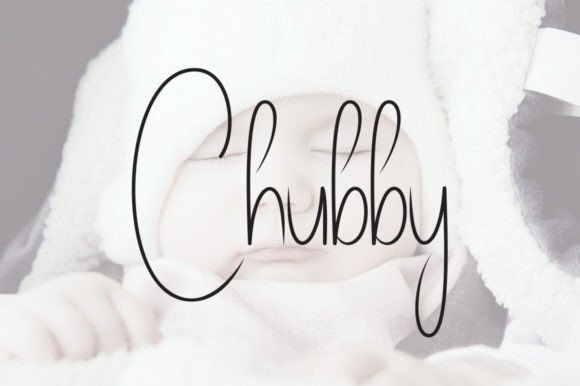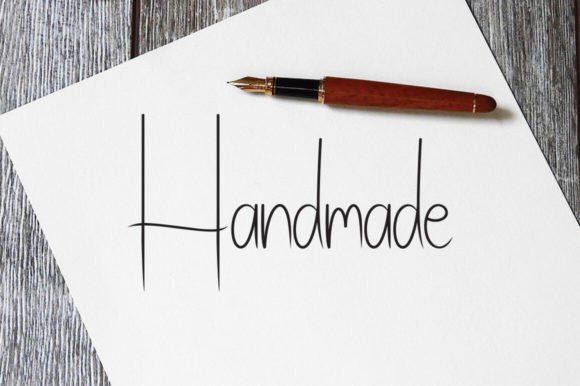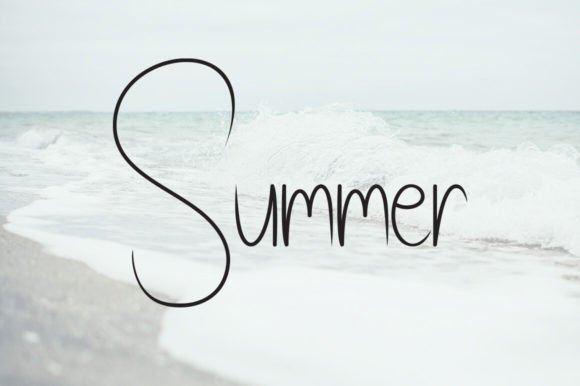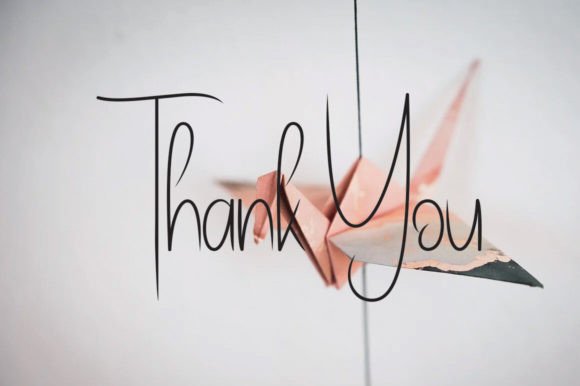
Introducing Brother Font: The Sweet and Cursive Handwritten Font for Your Design Needs
Are you a designer or crafter looking for a font that can add a touch of sweetness and romance to your projects? Look no further than Brother Font, a beautiful and cursive handwritten font that is sure to make your designs stand out. In this article, we’ll take a closer look at Brother Font, its features, and how you can use it to elevate your designs.
What is Brother Font?
Brother Font is a sweet and cursive handwritten font that is designed to add a joyful and romantic touch to your projects. Its gentle and flowing curves make it perfect for a variety of design ideas, from wedding invitations and baby shower cards to branding and packaging designs. With its unique and elegant style, Brother Font is sure to capture the hearts of your audience and leave a lasting impression.
Features of Brother Font
So, what makes Brother Font so special? Here are some of its key features:
- Sweet and Cursive Style: Brother Font has a beautiful, cursive handwritten style that is both sweet and elegant.
- Handwritten with Love: Each letter is carefully crafted by hand to give it a personal and unique touch.
- Versatile: Brother Font can be used for a wide range of design projects, from digital to print.
- Easy to Read: Despite its cursive style, Brother Font is easy to read and understand, making it perfect for body text and headings.
How to Use Brother Font in Your Designs
Now that you know more about Brother Font, let’s explore some ways you can use it in your designs:
Wedding and Event Designs
Brother Font is perfect for wedding invitations, save the dates, and other event-related designs. Its romantic and elegant style will set the tone for a beautiful and memorable event.
Branding and Packaging
If you’re looking for a font that can add a touch of personality to your brand, Brother Font is a great choice. Use it for logos, packaging, and marketing materials to give your brand a unique and feminine touch.
Digital and Print Materials
Brother Font can be used for both digital and print materials, including social media graphics, blog posts, and print-on-demand products. Its versatility makes it a great addition to any designer’s toolkit.
Tips for Using Brother Font Effectively
Here are some tips to help you get the most out of Brother Font:
- Pair it with Other Fonts: Brother Font looks great when paired with other fonts, especially sans-serif fonts. Experiment with different combinations to find the perfect match.
- Use it for Headings and Titles: Brother Font is perfect for headings and titles, but you can also use it for body text for a more elegant look.
- Experiment with Colors: Brother Font looks great in a variety of colors, from soft pastels to bold and bright hues. Experiment with different colors to find the perfect match for your design.
| Font Name | Brother Font |
| Author | betastudio13 |
In conclusion, Brother Font is a beautiful and versatile font that can add a touch of sweetness and romance to your designs. Its unique and elegant style makes it perfect for a wide range of design projects, from wedding invitations to branding and packaging designs. With its ease of use and flexibility, Brother Font is a great addition to any designer’s toolkit.